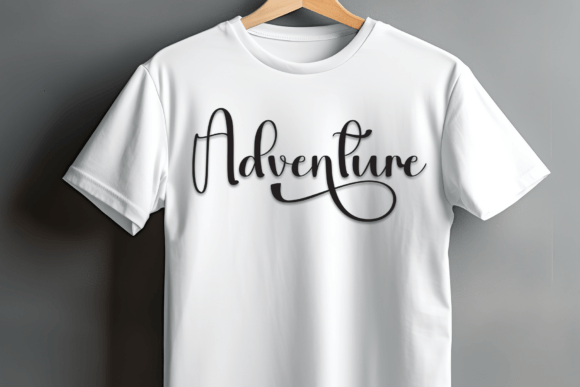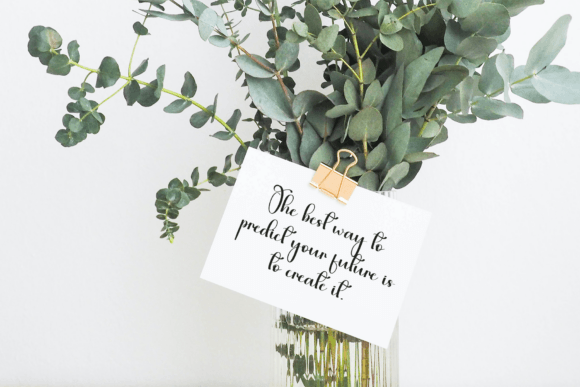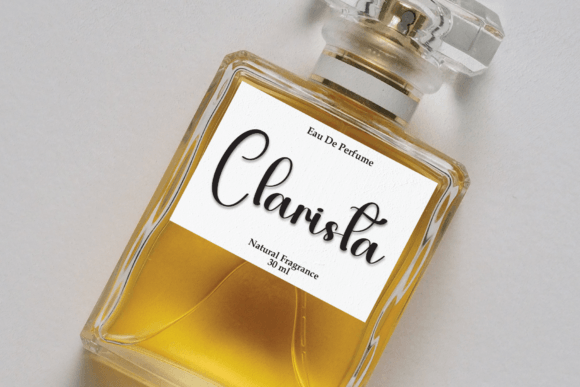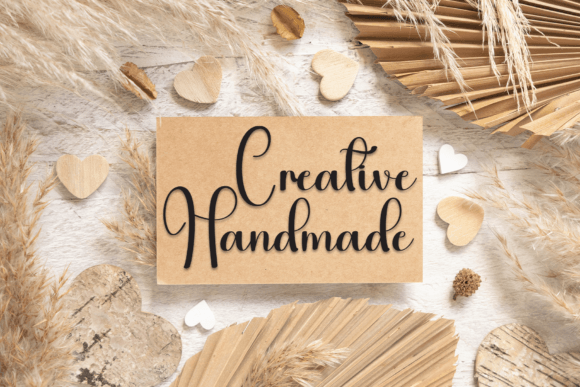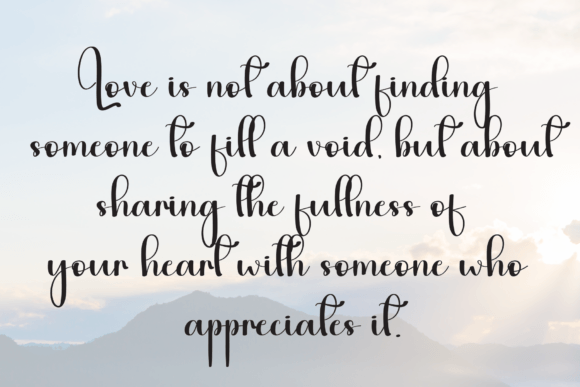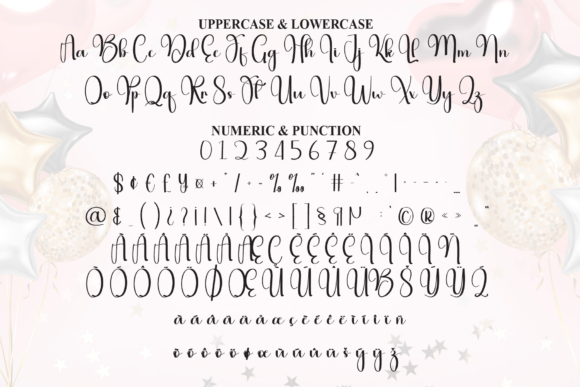
Introducing Birthday Font: A Charming Handwritten Display Font
Are you looking for a font that can add a touch of sweetness and playfulness to your design projects? Look no further than Birthday Font, a charming and affable handwritten display font that’s perfect for crafting romantic wedding invites, artistic greeting cards, and other designs that require a sprinkle of whimsical merriment.
A Perfect Blend of Sweetness and Playfulness
Birthday Font is a heart-touching font that’s designed to bring a sense of joy and warmth to your designs. Its subtle innocence and jovial tone promise to lovingly enhance your creative vision, making it the perfect choice for design projects where joy, love, and warmth are the themes.
Ideal for Romantic Wedding Invites and Greeting Cards
Whether you’re a designer or a crafter, Birthday Font is an excellent choice for creating romantic wedding invites, artistic greeting cards, and other paper crafts. The font’s whimsical and playful tone is sure to capture the hearts of your audience, making your designs stand out from the rest.
Elevate Your Designs with a Touch of Whimsy
With Birthday Font, you can elevate your designs to a new level of charm and sophistication. The font’s expressive handwritten style is perfect for adding a personal touch to your designs, making them more engaging and memorable.
- Charming and affable handwritten display font
- Perfect blend of sweetness and playfulness
- Subtle innocence and jovial tone
- Ideal for romantic wedding invites, artistic greeting cards, and paper crafts
- Whimsical and playful tone
- Expressive handwritten style
In conclusion, Birthday Font is a charming and affable handwritten display font that’s perfect for designers and crafters who want to add a touch of sweetness and playfulness to their designs. With its subtle innocence and jovial tone, Birthday Font is ideal for crafting romantic wedding invites, artistic greeting cards, and other designs that require a sprinkle of whimsical merriment. So why wait? Download Birthday Font today and elevate your designs to a new level of charm and sophistication.